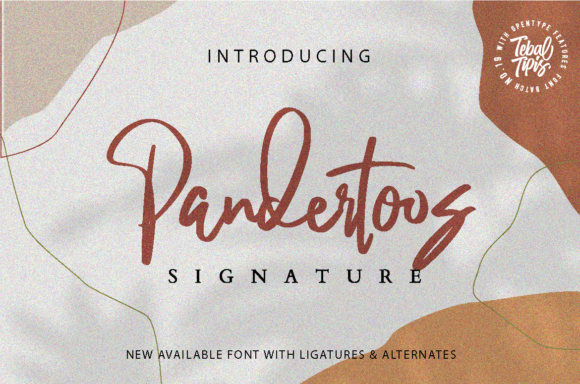
Prepare to be captivated by the exquisite Pandertoos script font, a masterpiece crafted by the renowned Tebaltipis.std. Its every curve and flourish is meticulously designed to exude an aura of elegance and sophistication, promising to transform your designs into a symphony of style.
Pandertoos is the perfect choice for those seeking to elevate their poster headings, adding a touch of allure to any announcement or proclamation. Its graceful strokes dance across the page, drawing the eye with their mesmerizing beauty. With Pandertoos, your words will leap from the screen, captivating your audience and leaving an unforgettable impression.
But Pandertoos is more than just a pretty face - it's a practical and versatile tool for all your creative endeavors. Its PUA encoding ensures effortless access to a treasure trove of glyphs and swashes, empowering you to customize your designs with limitless possibilities. Whether you're crafting invitations, designing social media posts, or creating eye-catching logos, Pandertoos will seamlessly adapt to your vision, adding a touch of magic to every project.
So why settle for ordinary fonts when you can indulge in the extraordinary? Embrace Pandertoos, the font that will unleash your creativity and ignite your passion for design. Let its elegant curves guide your artistic journey, and experience the joy of creating truly exceptional masterpieces.